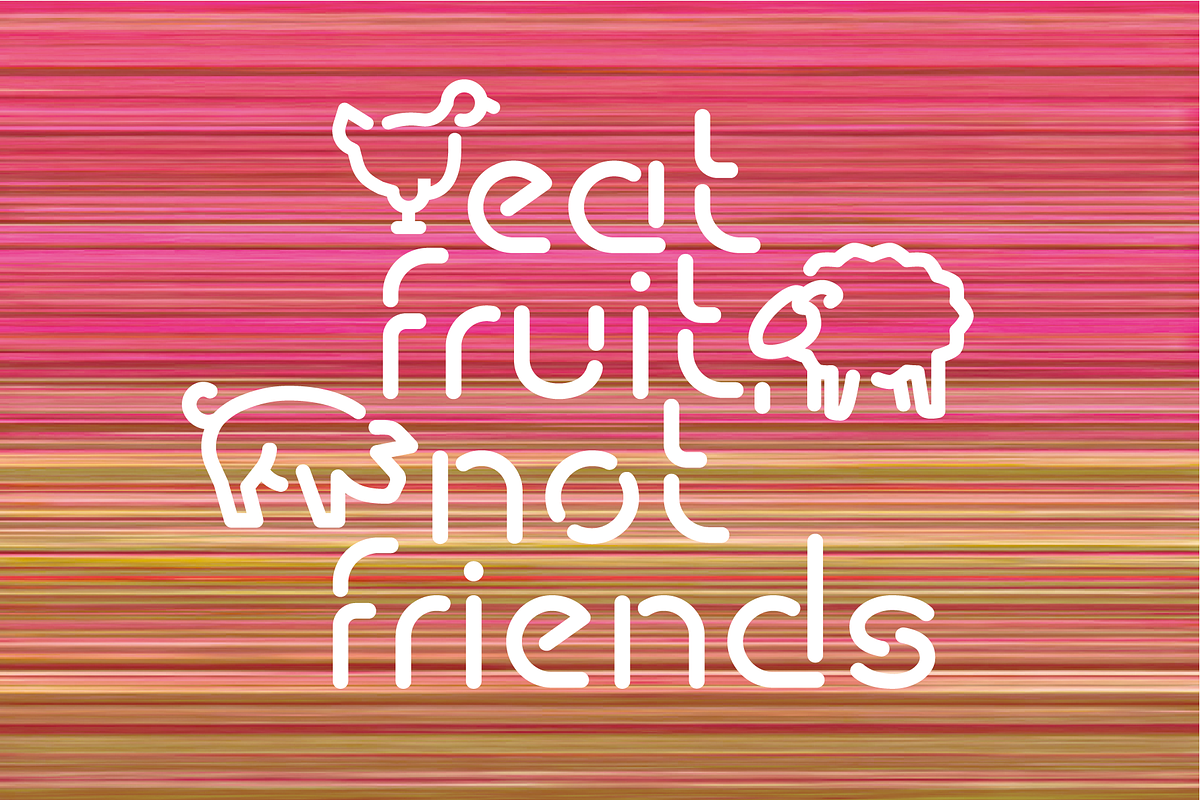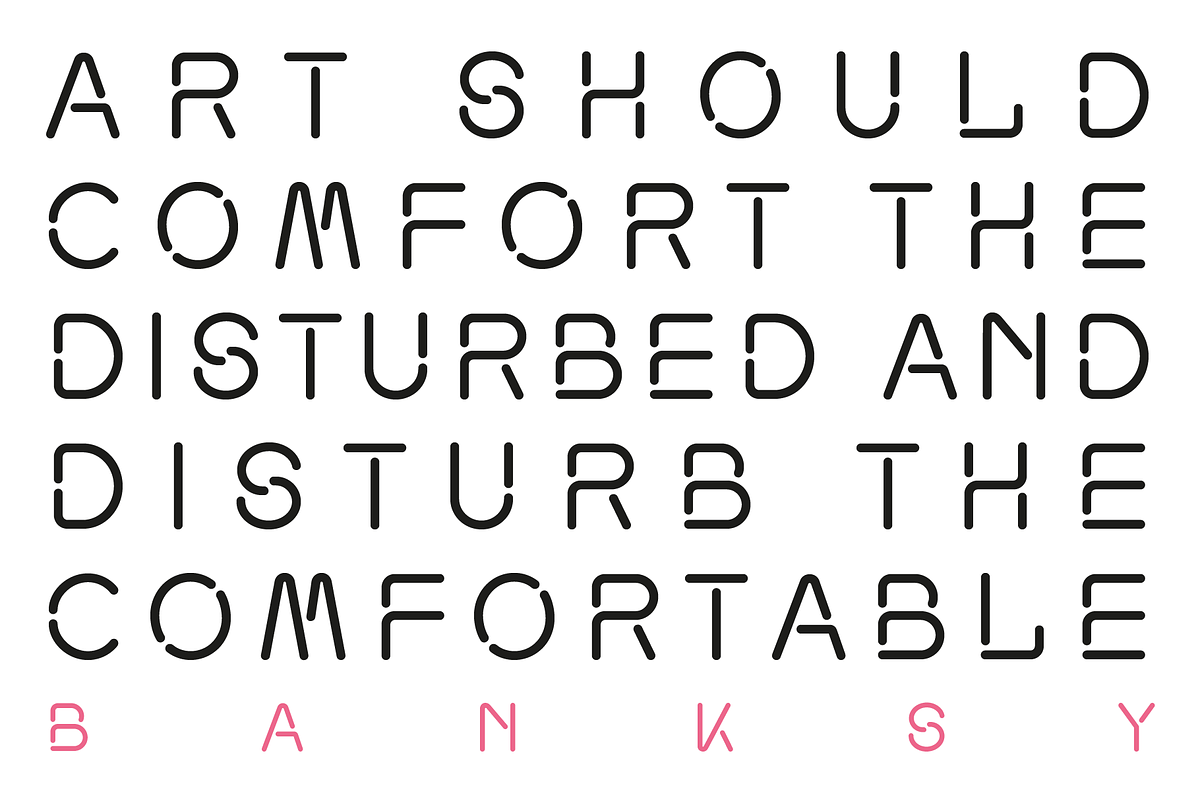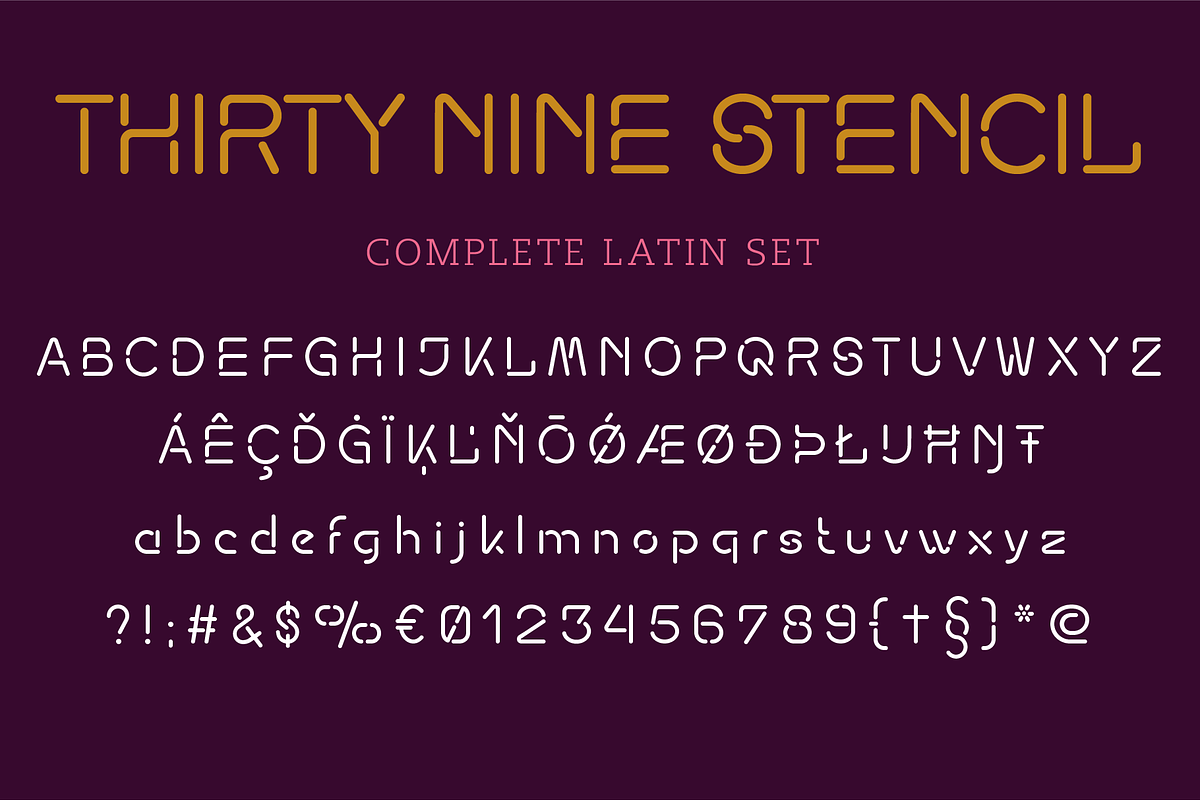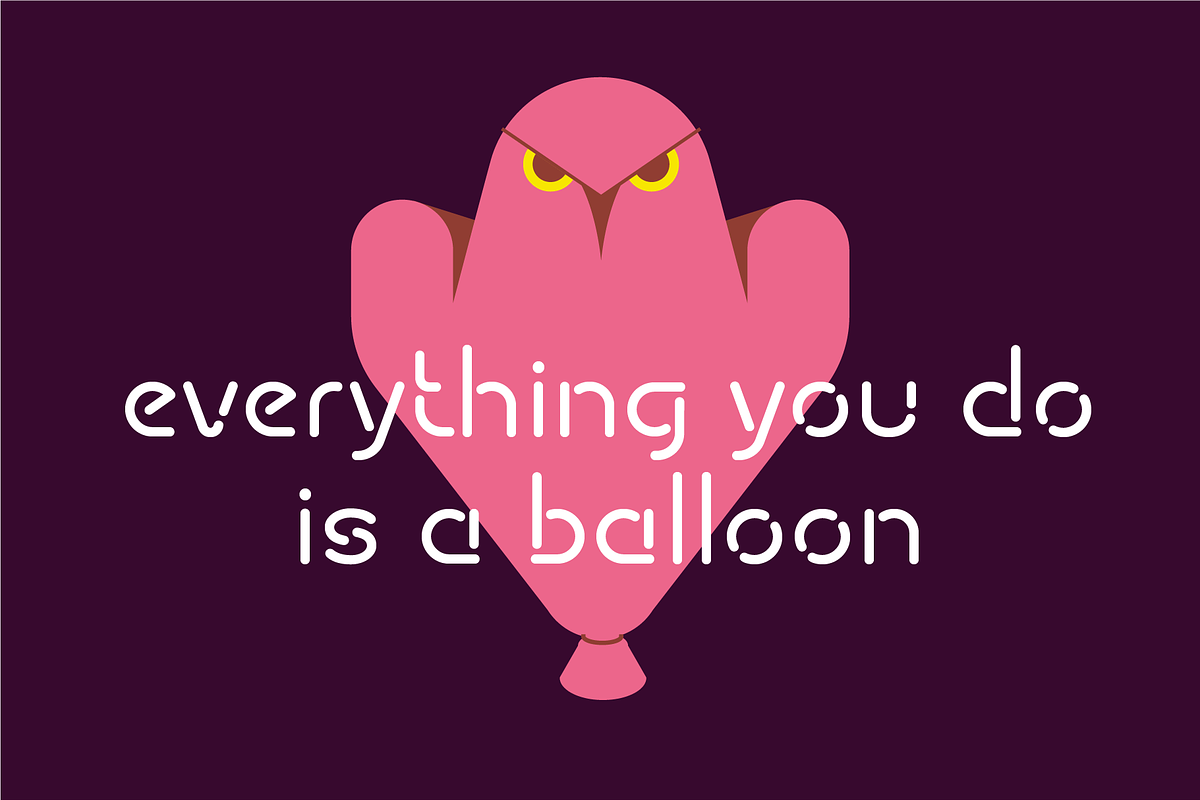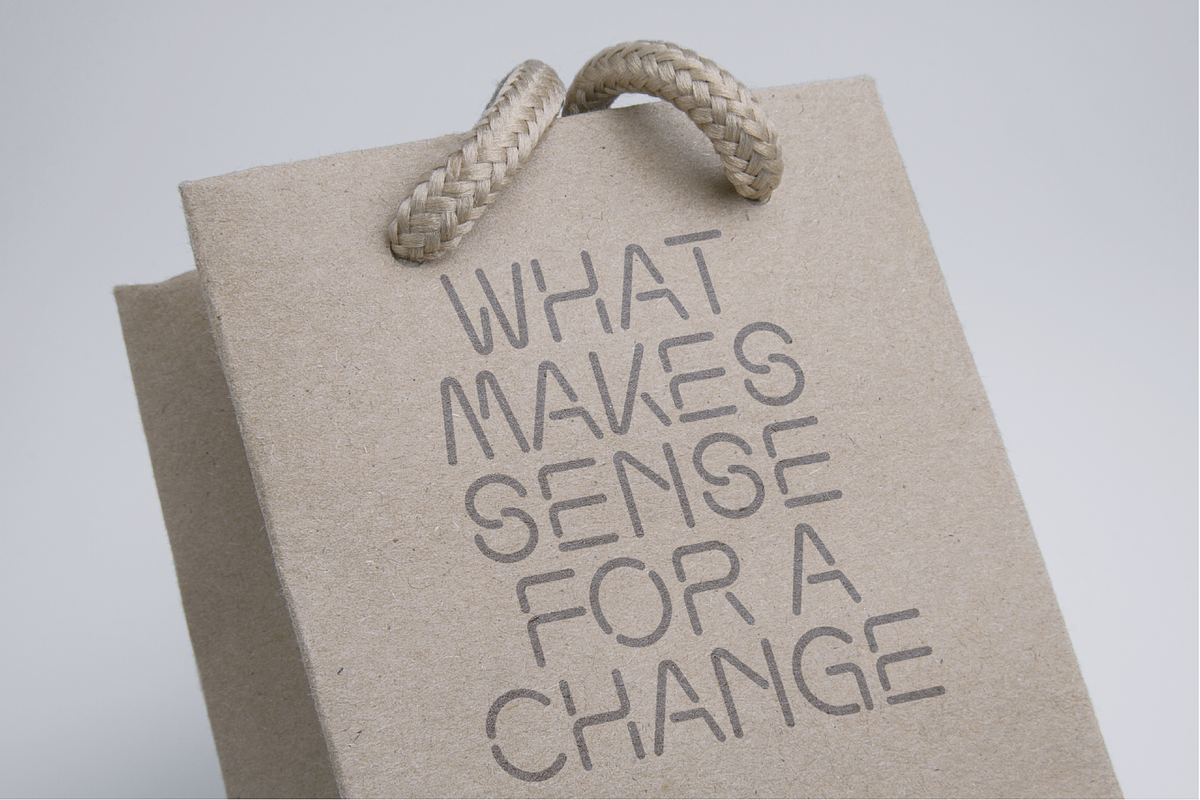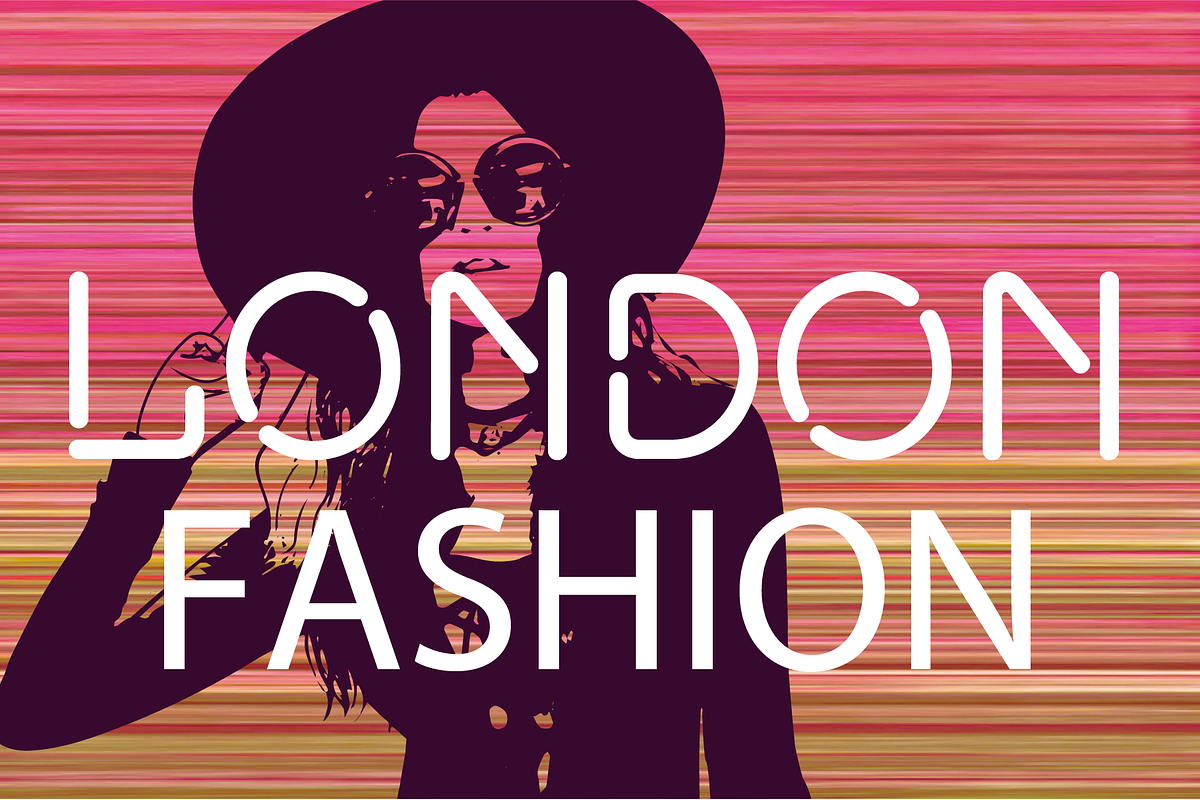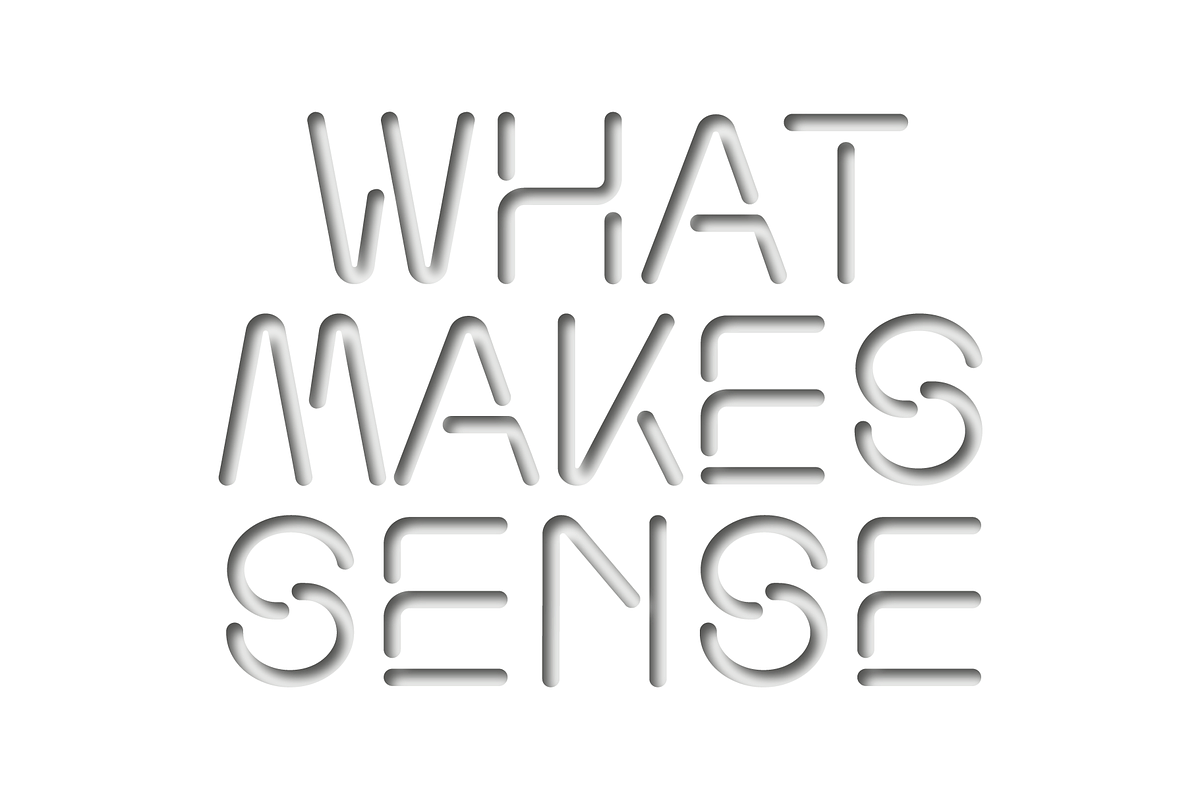
ThirtyNine-Stencil
If your typeface toolbox is in need of something fresh and new, this TypeFaith Font is for you. ThirtyNine Stencil is suitable for cutting out of paper or laser the font in wood or make some neon lights. But you also create the best designs with this stylish, elegant, geometric font. ThirtyNine Stencil is a unique and creative font perfect for strong branding from signatures to logos, posters flyers and book covers. ThirtyNine Stencil will help you to shake off the old feel and to create something new.
Highlights: Stencil font, perfect for cut outs and laser Stylish, strong, geometric font. Perfect typeface for powerful messages, logos, watermarks, album covers, branding and more. Multi-lingual support.
Why ThirtyNine-Stencil is worth a look
ThirtyNine-Stencil by TypeFaith Fonts fits naturally into Branding, posters, packaging, typography.